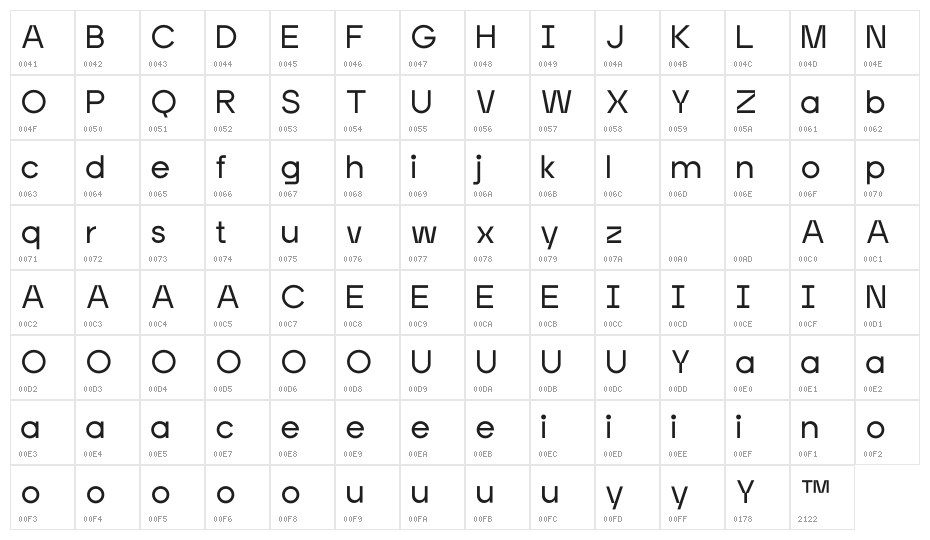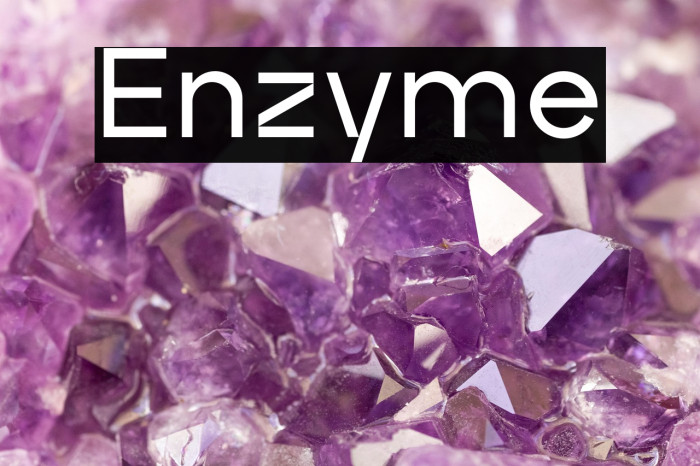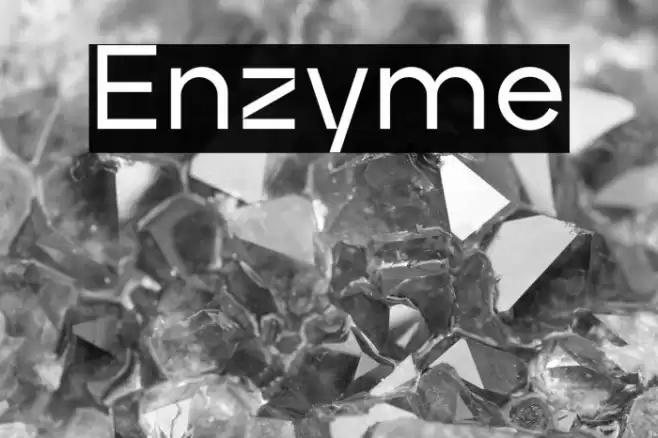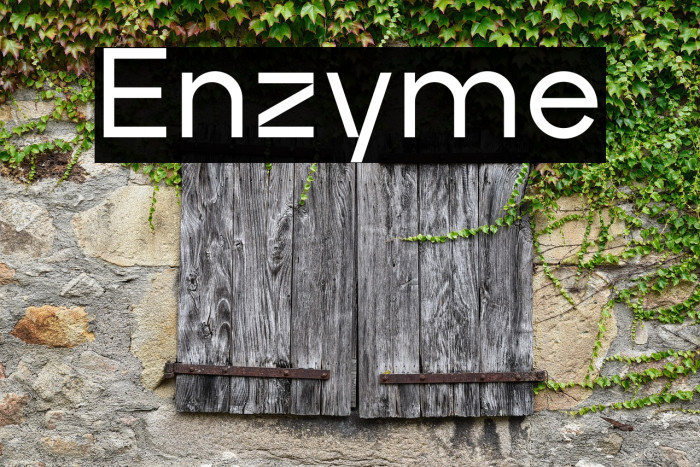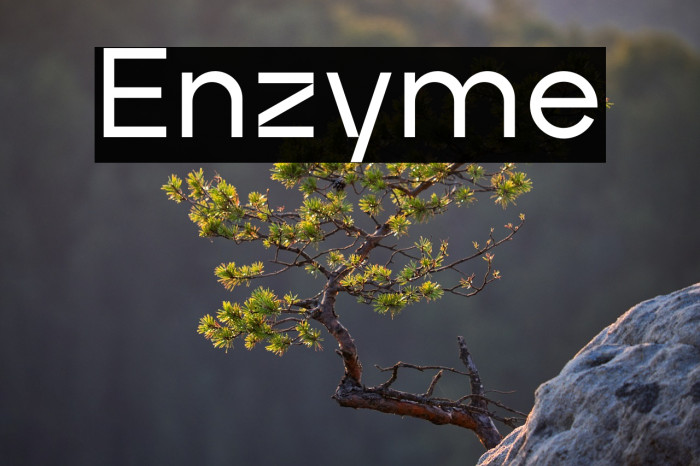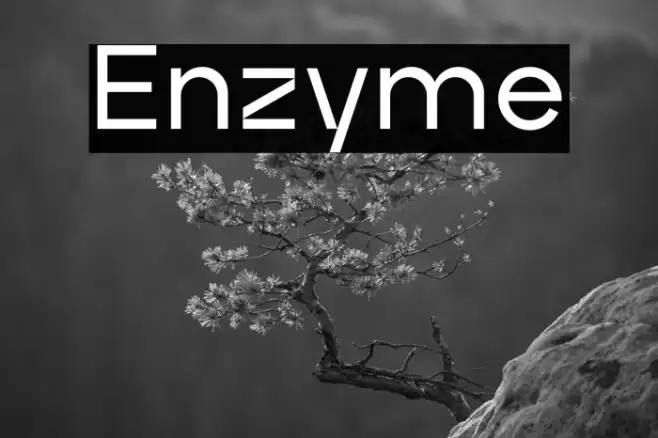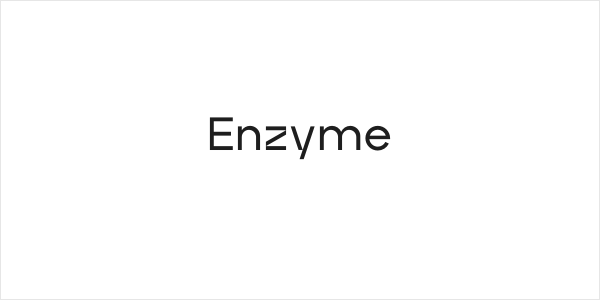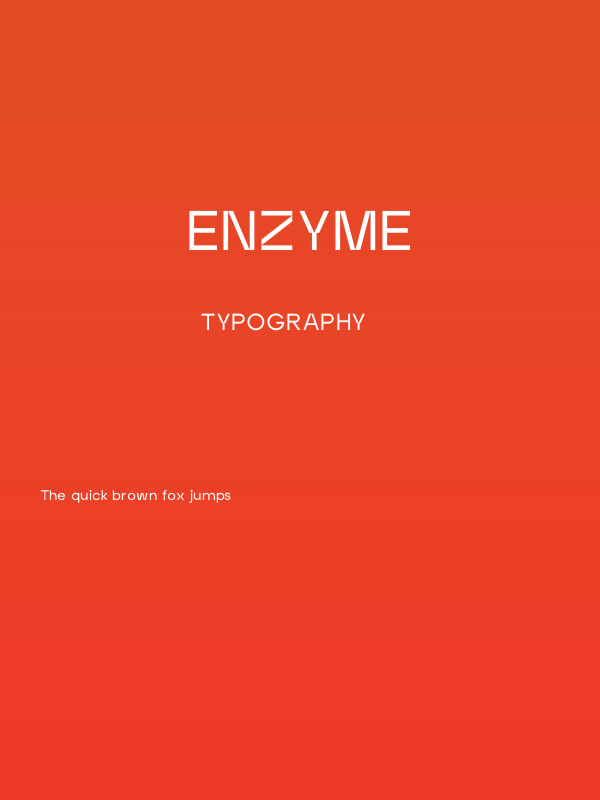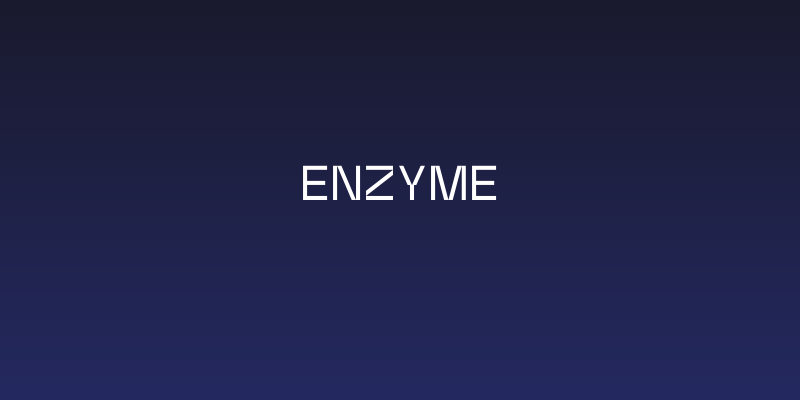
Enzyme Font
Enzyme Description
This font features a clean and modern sans-serif design, characterized by its geometric shapes and uniform stroke widths. The uppercase letters are bold and assertive, while the lowercase letters maintain a consistent roundness that adds a touch of softness to the overall appearance. The numerals are straightforward and align well with the alphabetic characters, ensuring readability. The absence of serifs gives it a sleek and contemporary feel, making it versatile for various design applications. The spacing between characters is balanced, providing clarity and legibility.
| Proposed Projects | Ideal for branding, web design, advertising, and editorial layouts where a clean, modern aesthetic is desired. |